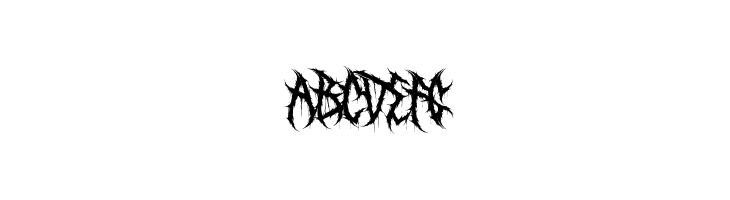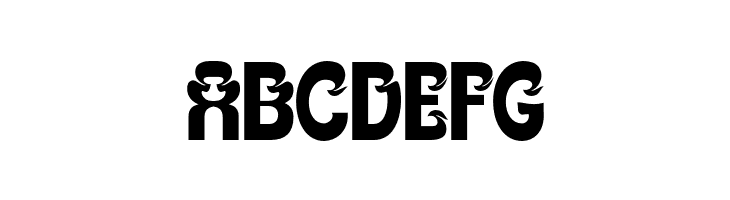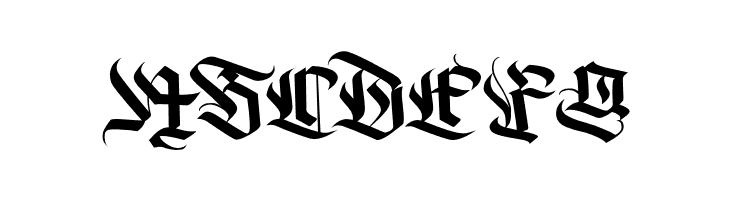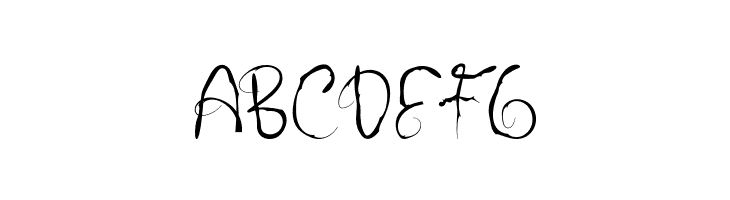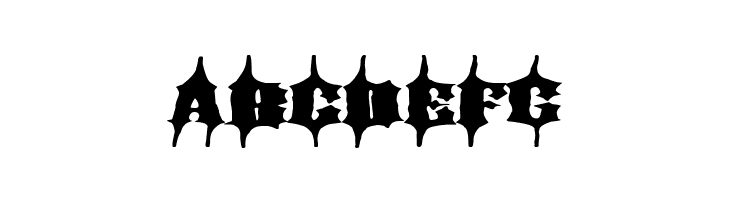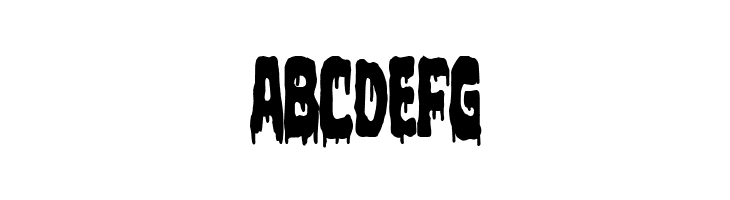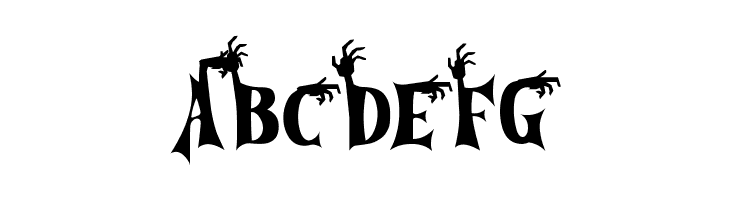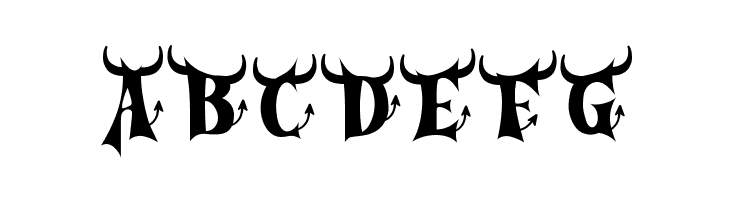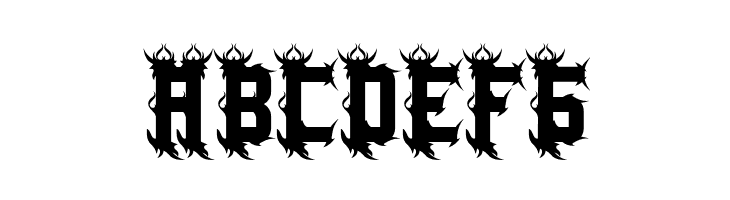
A decorative and edgy font with thorn-like, intricate details.
A bold, decorative font with intricate curves and flourishes.
A bold, gothic blackletter font with intricate, angular strokes and ornate details.
A spooky, decorative font with vine-like embellishments, perfect for Halloween themes.
A bold, spiked, gothic decorative font with extreme visual impact.
A bold, dripping horror-themed display font.
Bold, dripping display font with a horror-inspired style.
A bold, jagged, root-inspired decorative font with a gothic, eerie feel.
A horror-themed display font with clawed, zombie-like accents.
A bold, gothic display font with devilish horns and tails.
A bold, flame-adorned decorative display font with sharp, angular forms.
A bold, web-like horror display font with jagged, chaotic forms.